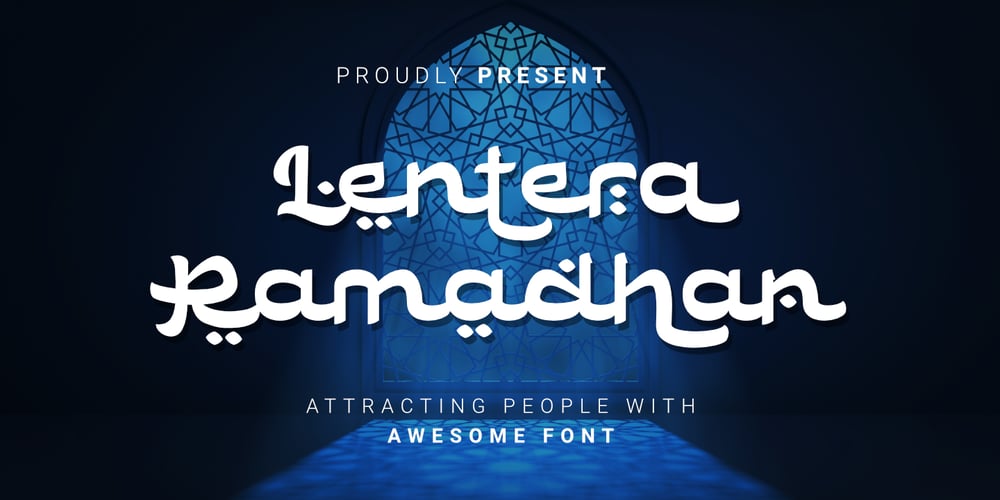
Lentera Ramadhan Font Family was designed by Toni Dzulham and published by Dumadi. Lentera Ramadhan contains 1 styles and family package options. Hi There, Ahead of the month of Ramadan in the Hijri calendar, we have created a very amazing font.We have created the “Lentera Ramadhan” font in Hijaiya-like style and shape which is sure to make Ramadan greetings extraordinary with your best projects. equipped with Stylistic Alternate and SS01 which makes the font feel not monotonous.This font is perfect for those of you who create Ramadan poster projects, titles, banners, Instagram posts, holiday greeting cards, food menus, and other designs.